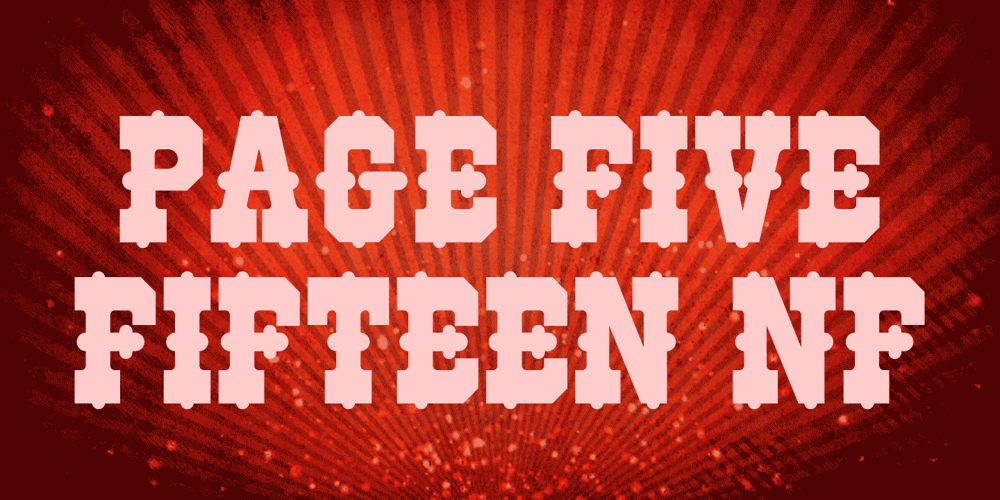
Page Five Fifteen NF
Page Five Fifteen NF Font Family was designed by Nick Curtis and published by Nick’s Fonts. Page Five Fifteen NF contains 1 styles and family package options. The name says it all—another offering from the William H. Page Woodtype Company, spruced up (ouch!) and ready to dress up your next project. Both flavors of this font feature the 1252 Latin, 1250 Central European, 1254 Turkish and 1257 Baltic character sets.